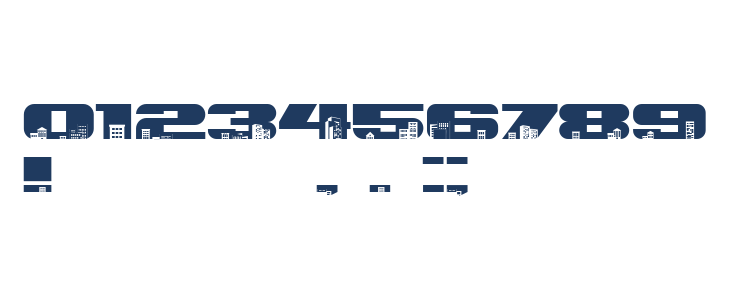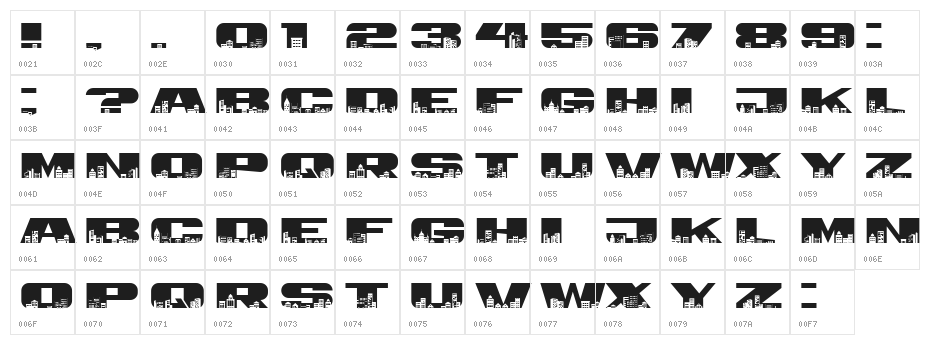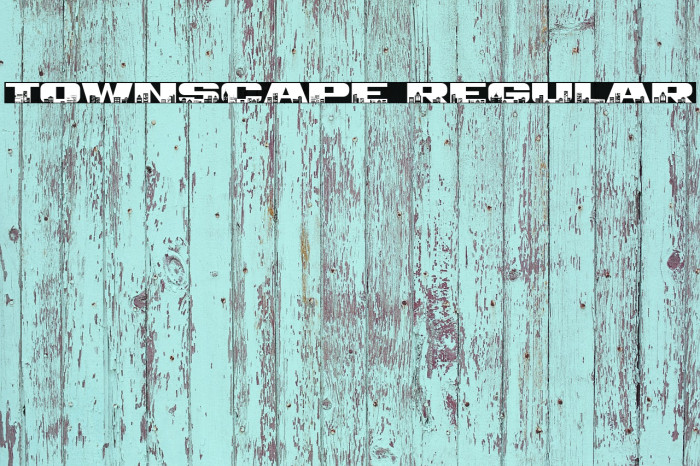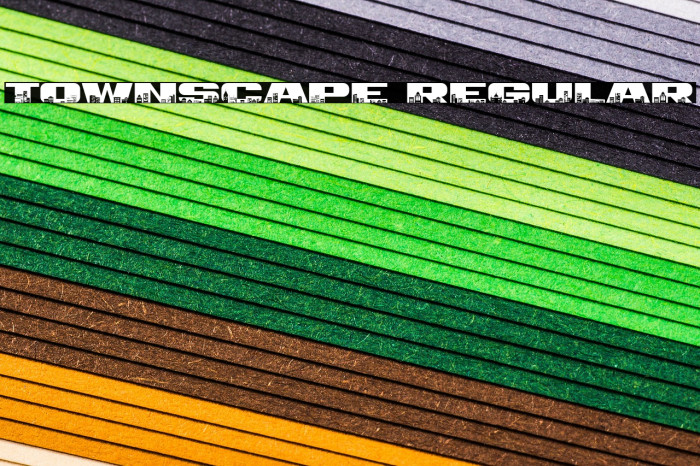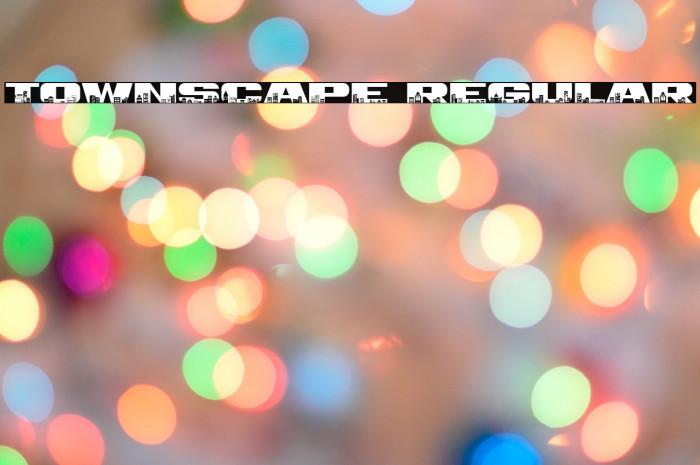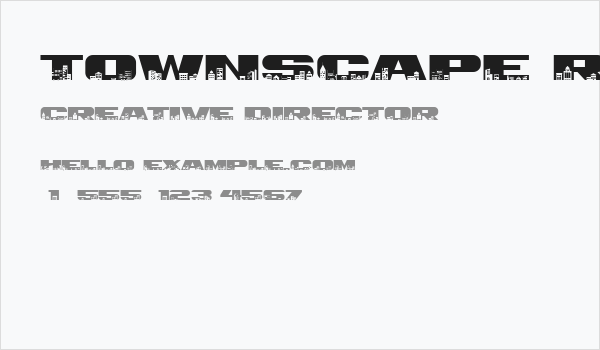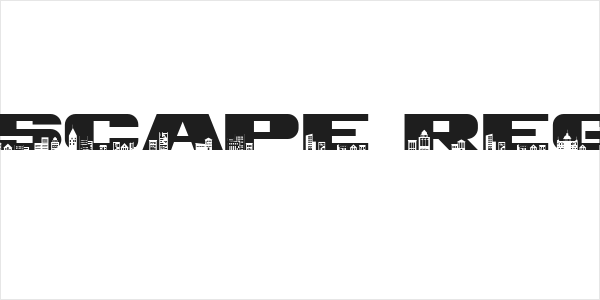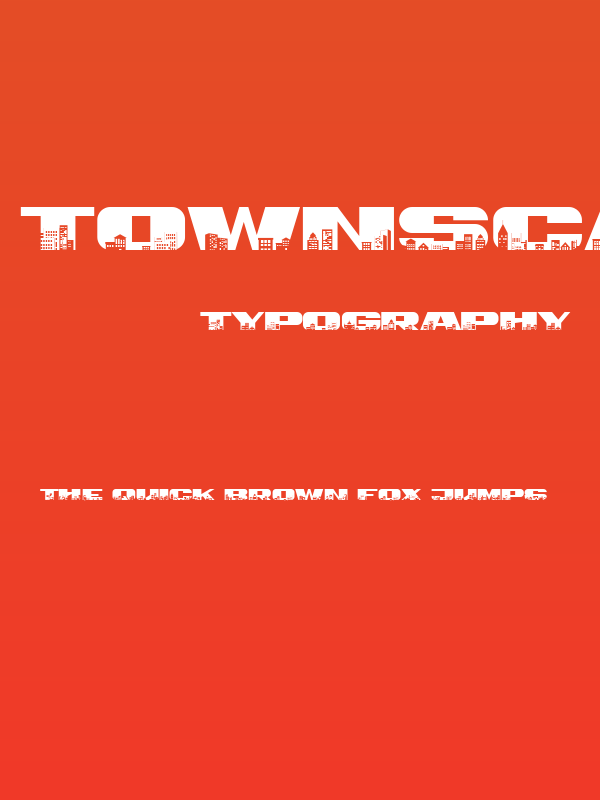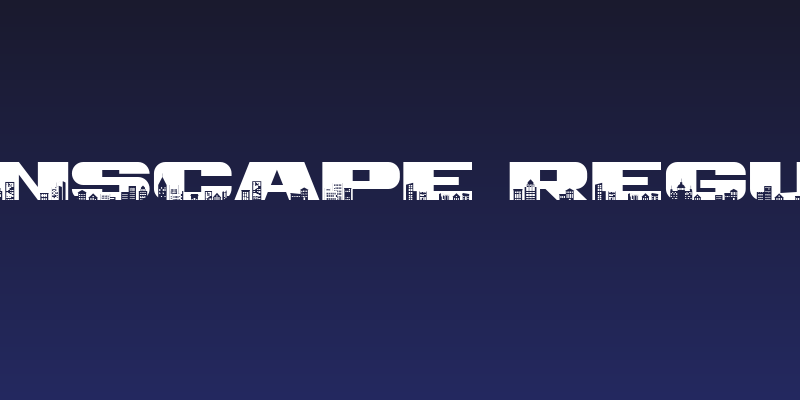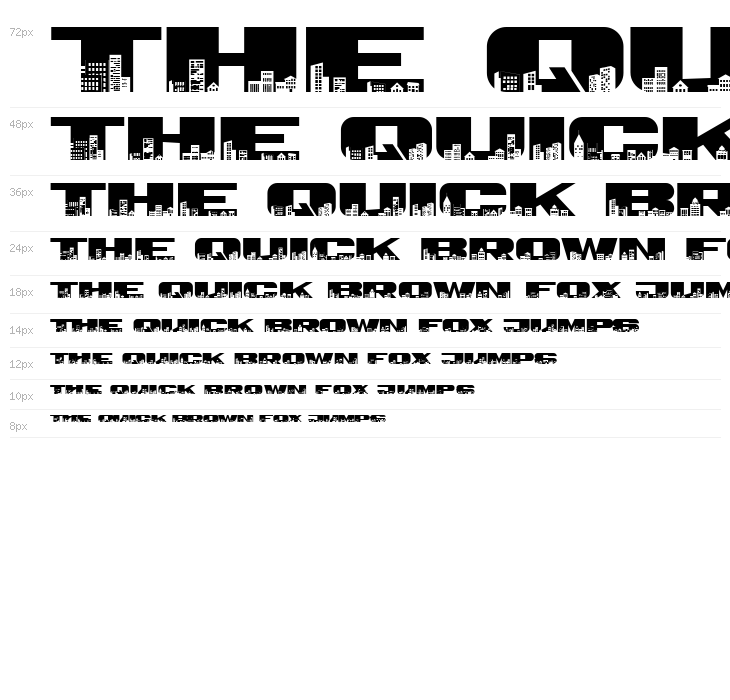
Townscape Regular Font
Townscape Regular Description
This font features a unique design that incorporates cityscape silhouettes within the bold, blocky letterforms. Each character is filled with intricate details of buildings and urban elements, creating a striking visual effect. The uppercase and lowercase letters maintain a consistent style, with the cityscape motif running through all characters, including numbers and special symbols. The overall appearance is both modern and artistic, making it ideal for projects that require a strong visual impact. The font's boldness and detailed design make it stand out, while the urban theme adds a contemporary touch.